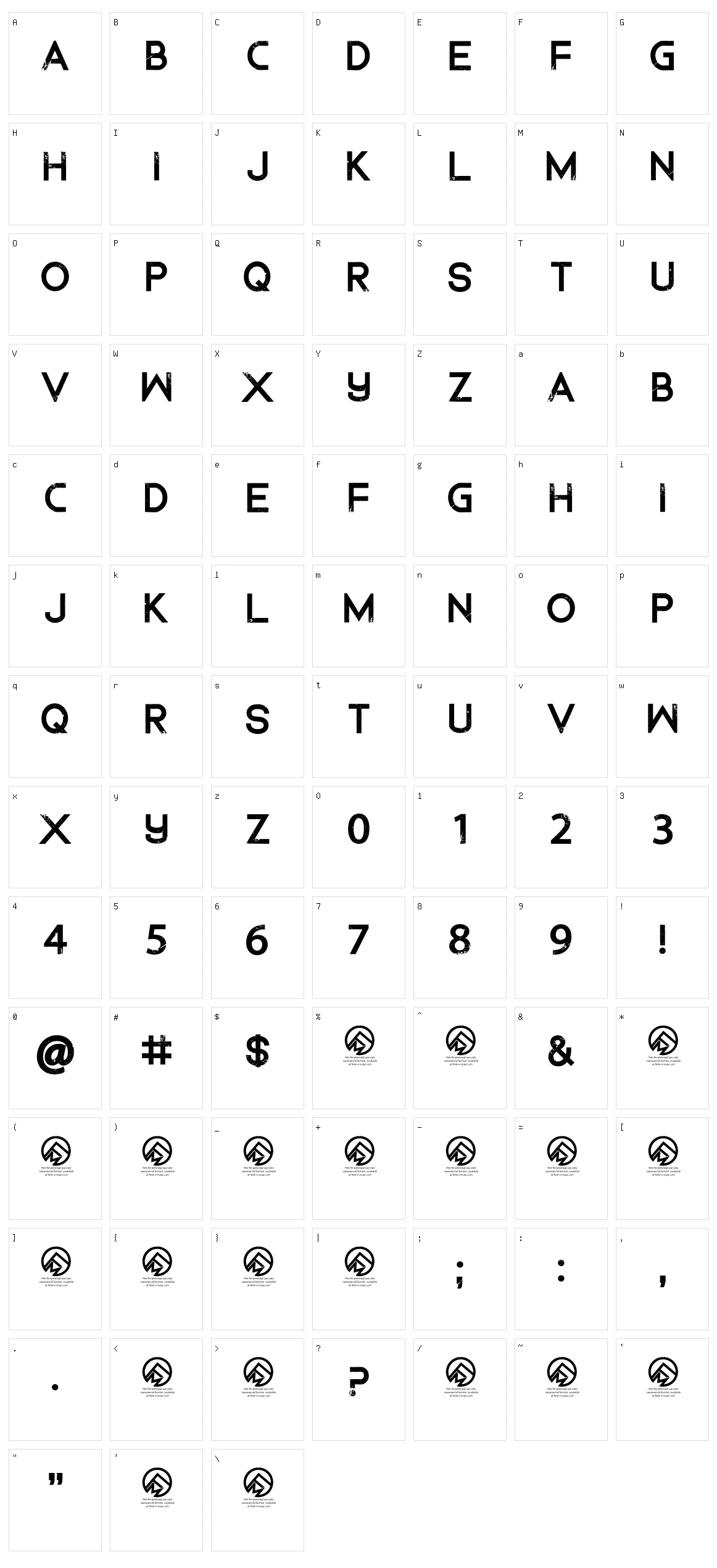
The free font Dedecus Putro is carefully designed by Font Monger, showcasing a thoughtful balance of creativity and usability and falls under the Eroded font style. When you download the ZIP file, it contains only 262.31 KB of font files, making it lightweight and quick to download. Please review the license details below to understand permitted usage and distribution rights. If license information is not available, we recommend using this font for personal projects only or contacting the author directly for commercial usage permissions.